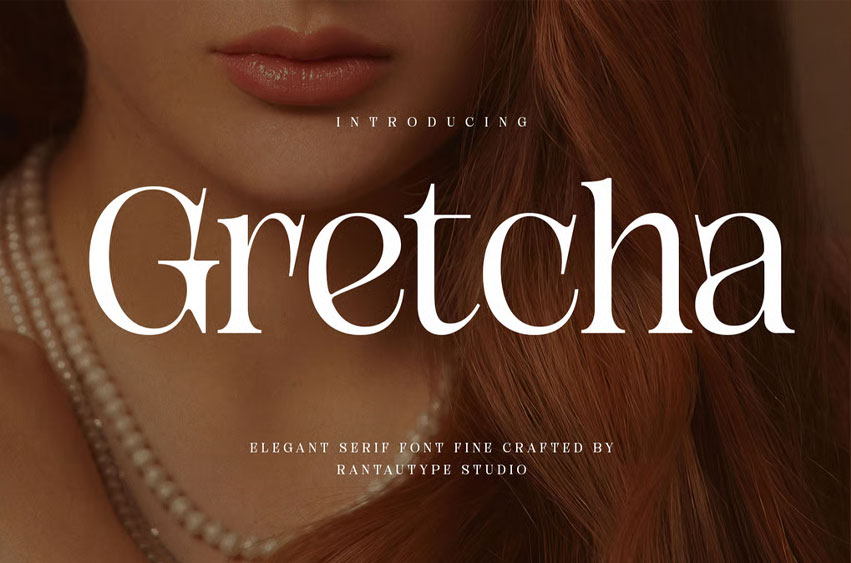
Gretcha Font
Gretcha Font is a serif font that embodies timeless sophistication, crafted to elevate any visual identity with grace and distinction. Each letterform is designed with the intention of fine serifs and balanced proportions to create a harmonious rhythm that draws the eye and enhances readability across both print and digital mediums.
Gretcha is a perfect choice for any creative endeavor, chic, lifestyle design, such as logotype, advertisements, watermark on photography, stationery, branding project, display and magazine, invitation, corporate brand, product design, label, business project, and many other projects with a retro touch.